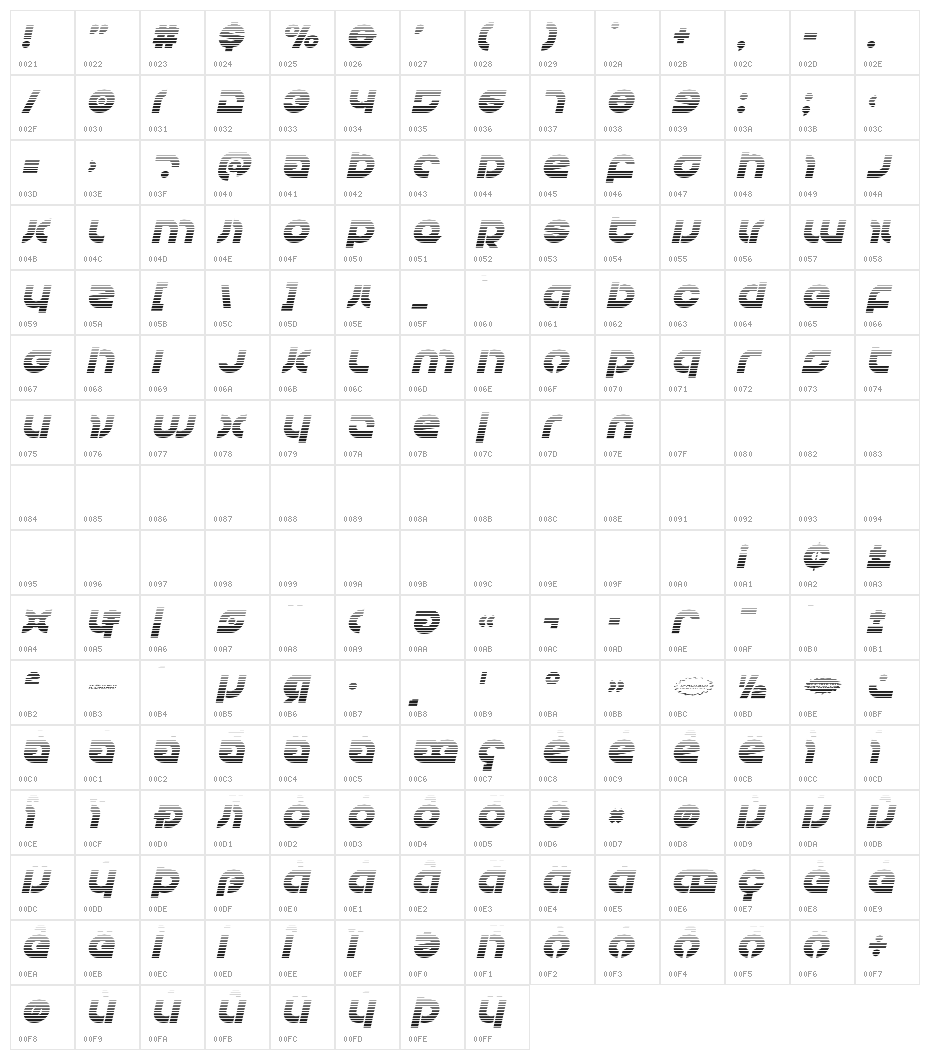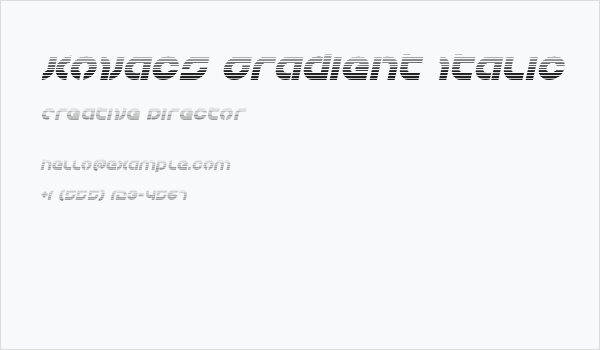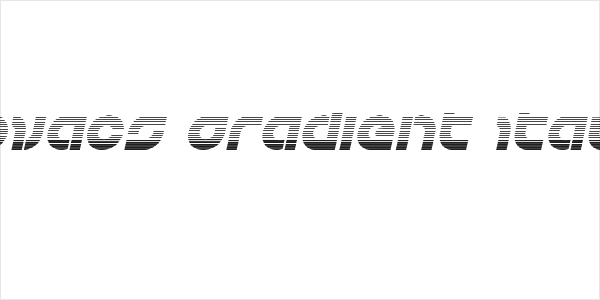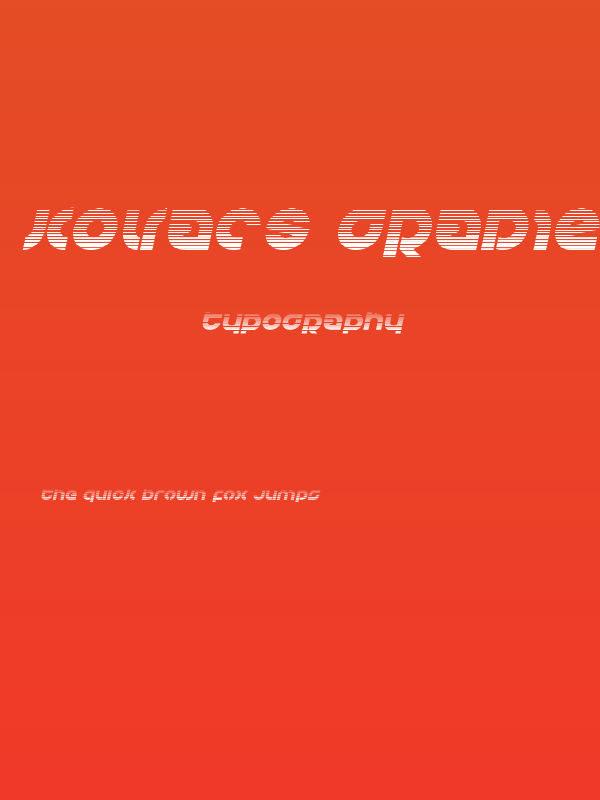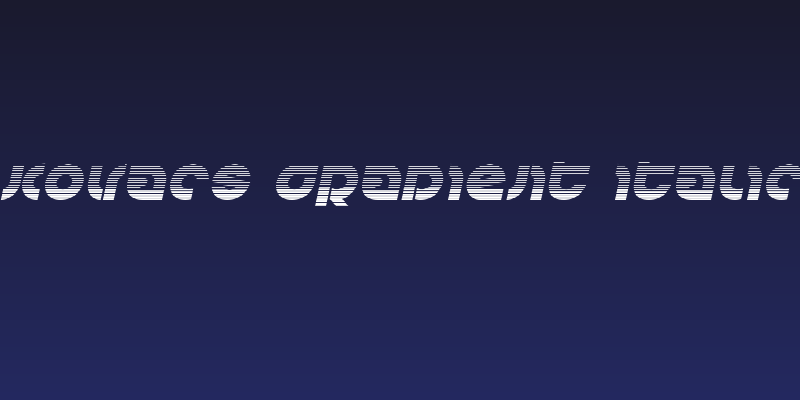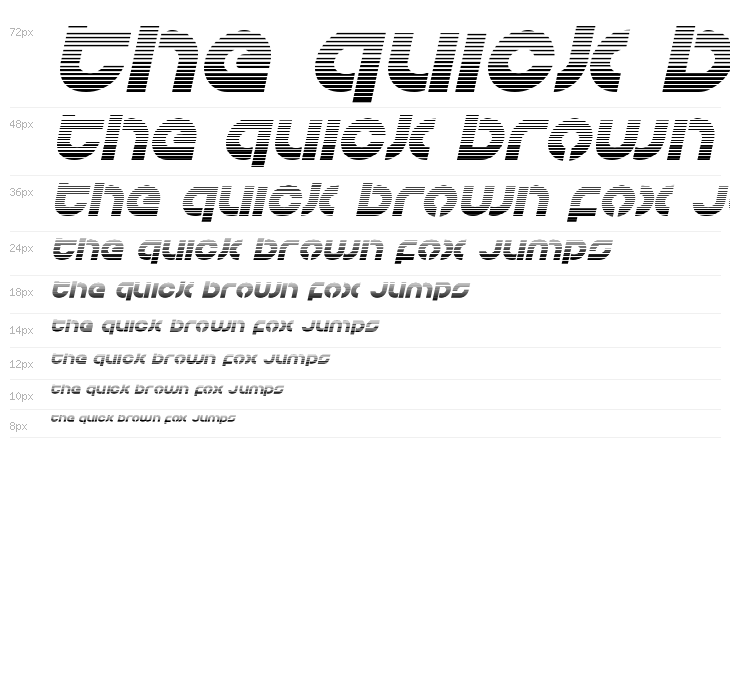
Kovacs Gradient Italic Font
Kovacs Gradient Italic Description
This font features a unique gradient effect with horizontal lines creating a sense of movement and depth. The italic style adds a dynamic and forward-leaning appearance, enhancing its modern and futuristic feel. Each character is composed of parallel lines that vary in thickness, contributing to a high-contrast look. The overall design is bold and eye-catching, making it suitable for creative and innovative projects. The spacing between characters is tight, which emphasizes the continuity of the gradient effect across words.
| Proposed Projects | Ideal for futuristic branding, tech-related designs, and creative advertising campaigns. |